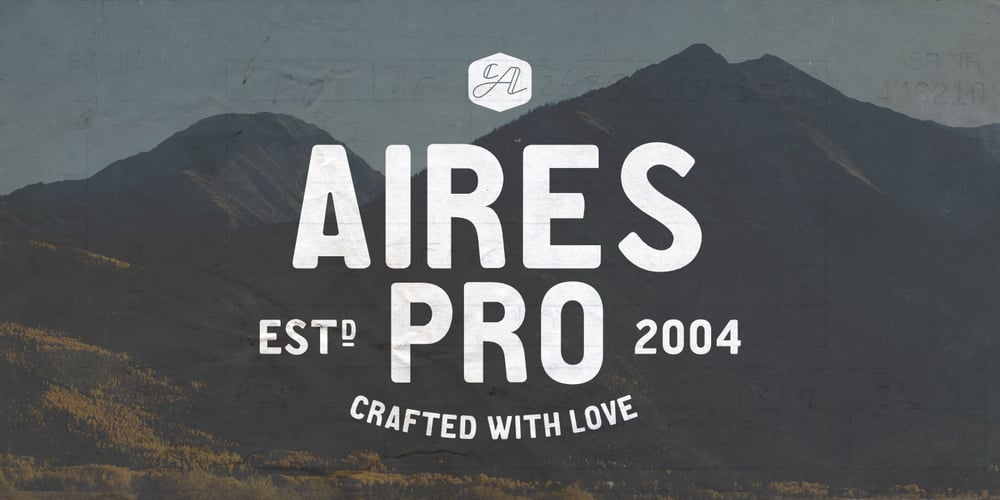
CA Aires Pro Font Family was designed by Stefan Claudius and published by Cape Arcona Type Foundry. CA Aires Pro contains 2 styles and family package options. This font was inspired by a postcard from the 30s. On the one side near the stamp were the words ‘BUENOS AIRES’. It looked so simple yet strange, that we started to make a font of it. It turned out to become Cape Arcona’s most popular freefont and we were even sent Spanish versions of the font. After a lot of requests for a full character set we started to draw the lower cases. They keep the simple but quirky style that makes the upper cases so interesting and versatile. To round it out we added an italic version to give a bit more artistic freedom.